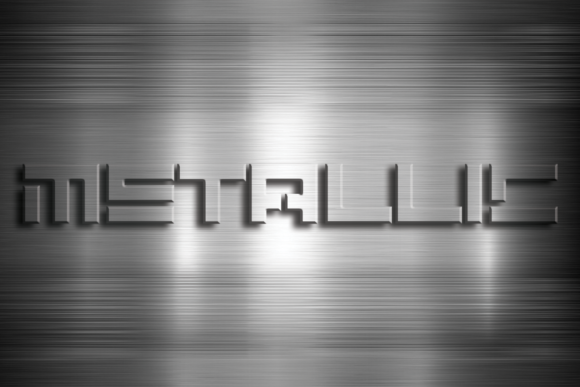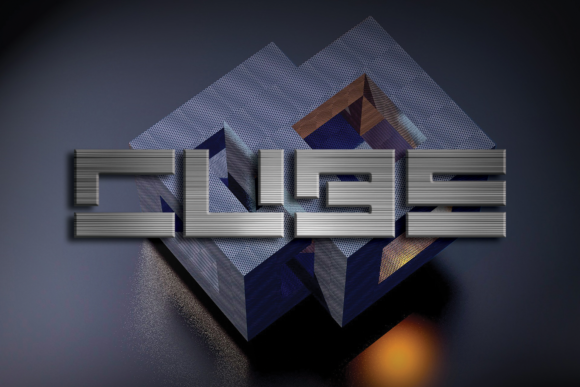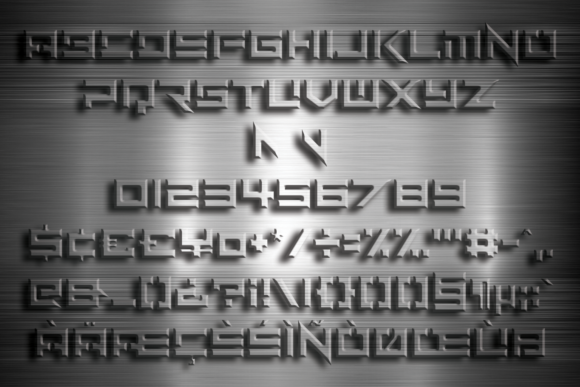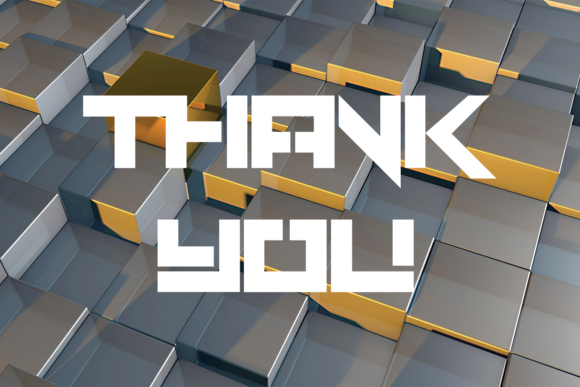
Introducing Dimension Font: The Ultimate Display Font for Bold Designs
Are you tired of using the same old fonts in your designs? Do you want to add a touch of uniqueness and quirkiness to your projects? Look no further than Dimension Font! This cool and daring display font is perfect for designers and crafters who want to make their designs stand out from the crowd.
What is Dimension Font?
Dimension Font is a bold and chunky lettered font that features spectacular characters that will bring your designs to life. Its unique and quirky style makes it perfect for a variety of design projects, from posters and flyers to social media graphics and branding materials.
Key Features of Dimension Font
- Bold and Daring Characters: Dimension Font features bold and daring characters that will add a touch of excitement to your designs.
- Unique and Quirky Style: The font’s unique and quirky style makes it perfect for designers who want to add a touch of personality to their projects.
- Chunky Lettering: The font’s chunky lettering makes it perfect for display purposes, such as headlines and titles.
- Easy to Read: Despite its bold and chunky style, Dimension Font is easy to read, making it perfect for designs that require a clear and concise message.
How to Use Dimension Font in Your Designs
Dimension Font is perfect for a variety of design projects, including:
- Posters and Flyers: Use Dimension Font to create eye-catching headlines and titles that will grab the attention of your audience.
- Social Media Graphics: Add a touch of personality to your social media graphics with Dimension Font’s unique and quirky style.
- Branding Materials: Use Dimension Font to create bold and memorable branding materials, such as logos and business cards.
- Web Design: Use Dimension Font to add a touch of personality to your website’s design, such as in headings and titles.
Tips for Using Dimension Font Effectively
- Use it Sparingly: While Dimension Font is bold and eye-catching, it can be overwhelming if used too much. Use it sparingly to add emphasis to your designs.
- Pair it with Other Fonts: Pair Dimension Font with other fonts to create a unique and interesting contrast.
- Experiment with Colors: Experiment with different colors to find the perfect combination that works with your design.
Why Designers and Crafters Love Dimension Font
Designers and crafters love Dimension Font for its unique and quirky style, bold and daring characters, and ease of use. Here are some reasons why:
- Unique Style: Dimension Font’s unique style makes it stand out from other fonts, adding a touch of personality to designs.
- Easy to Use: Dimension Font is easy to use, even for those who are new to design.
- Versatile: Dimension Font is versatile and can be used in a variety of design projects.
Dimension Font is a cool, unique, and quirky display font that is perfect for designers and crafters who want to add a touch of boldness and personality to their designs. With its bold and daring characters, chunky lettering, and ease of use, Dimension Font is sure to make your designs stand out from the crowd. Try it out today and see the difference it can make!